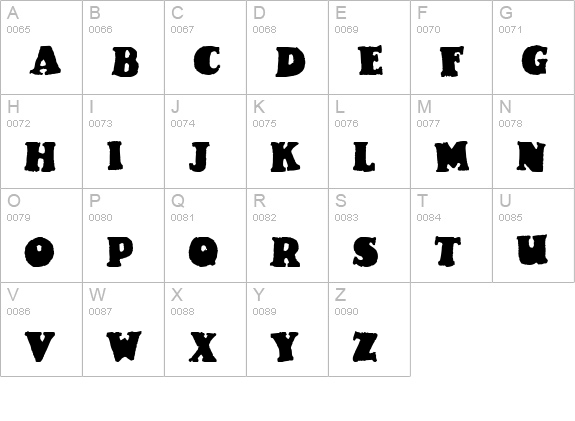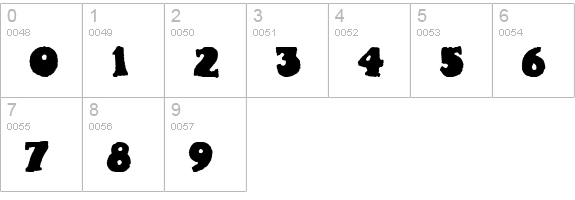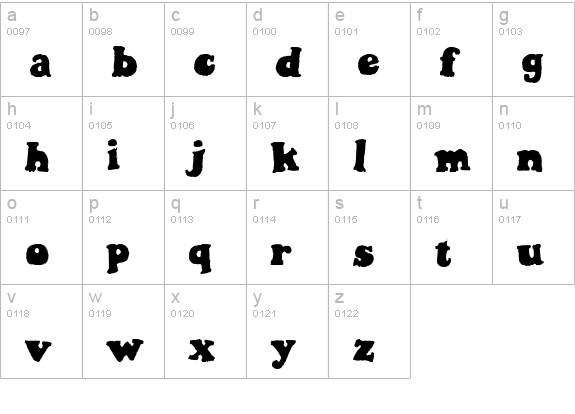
CK Lumpy Font Details
Introducing CK Lumpy, a fun and quirky font that adds a touch of playfulness to any project. With its irregular shapes and bouncy letters, CK Lumpy is perfect for creating eye-catching designs that stand out from the crowd. This free font is available for download at FontsMarket.com, making it easy for anyone to add a unique flair to their projects. Whether you're working on a poster, logo, or social media graphic, CK Lumpy is sure to liven up your design and bring a smile to your audience's face. Download CK Lumpy today and let your creativity run wild!